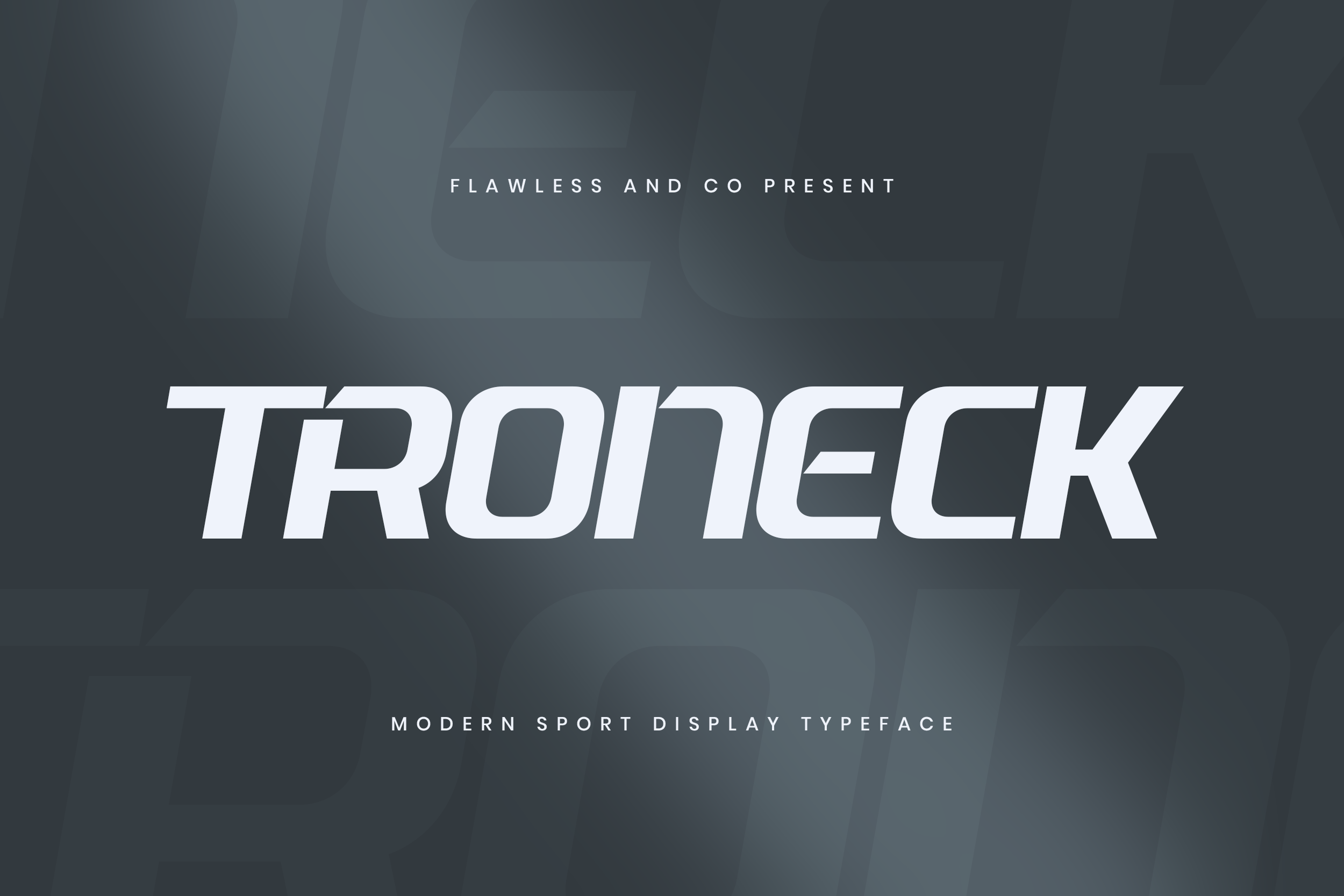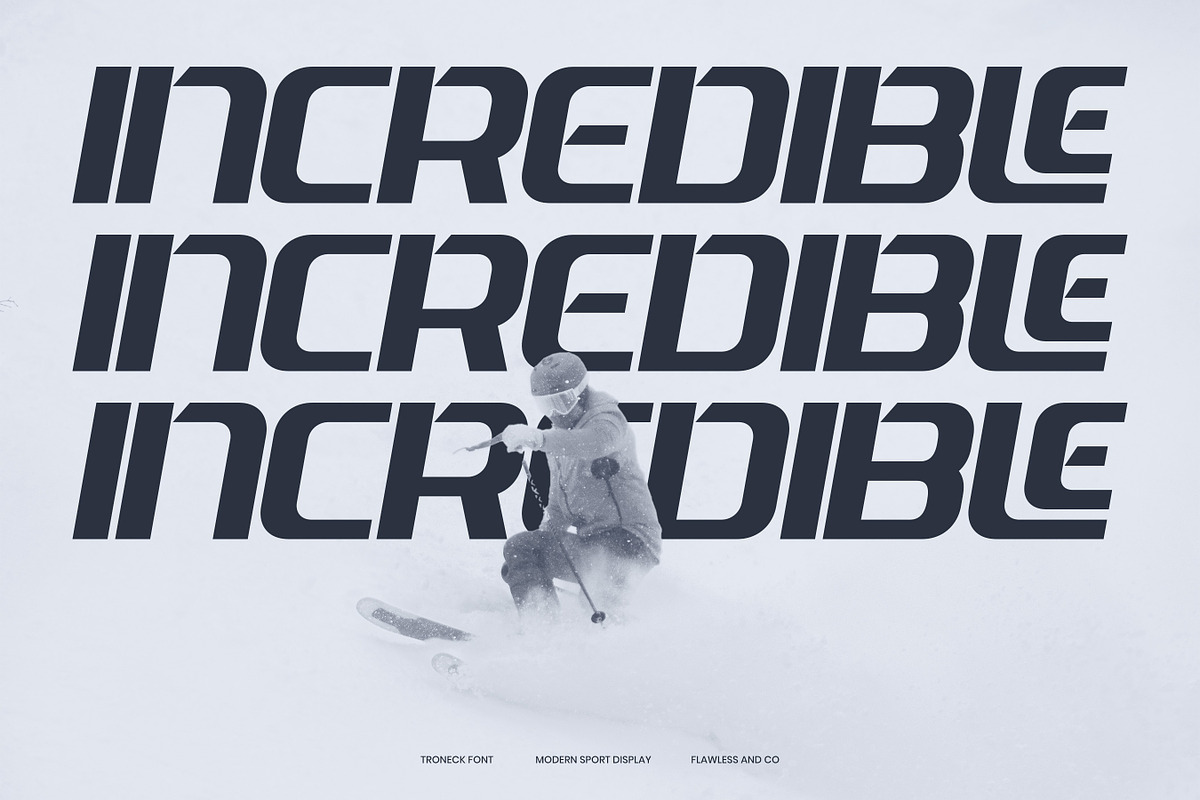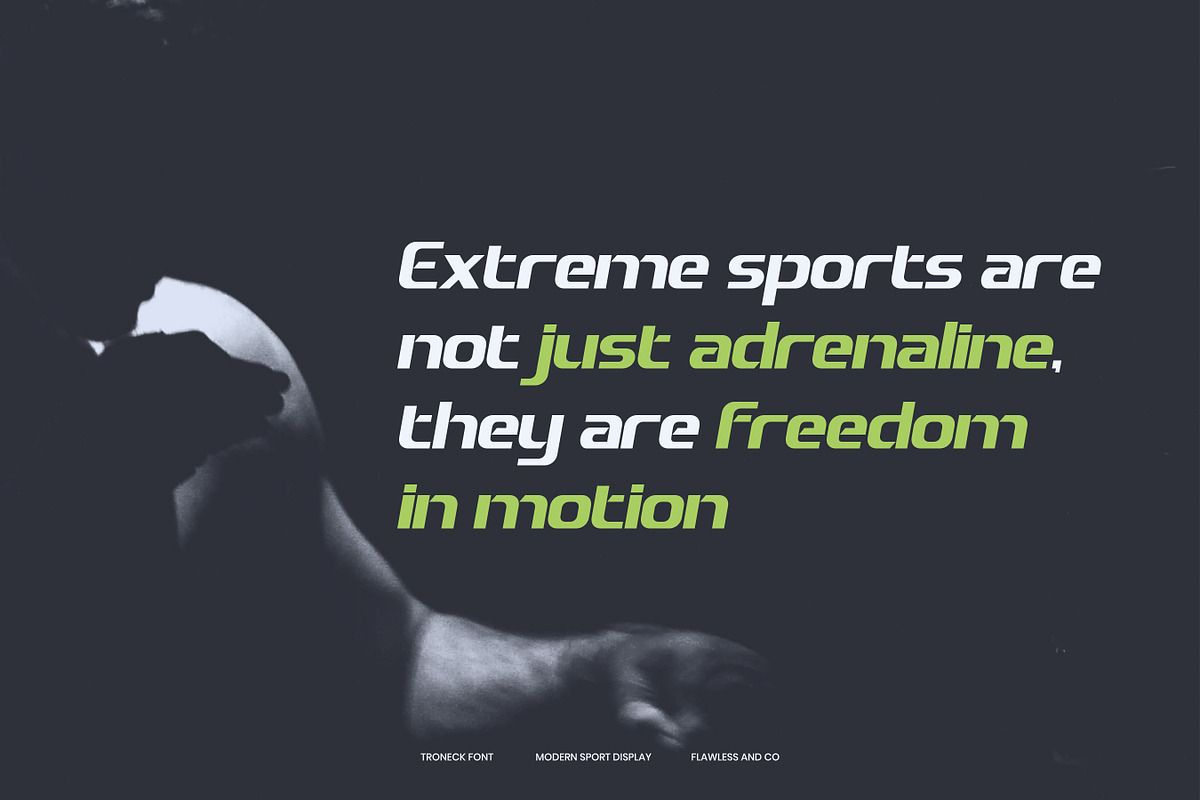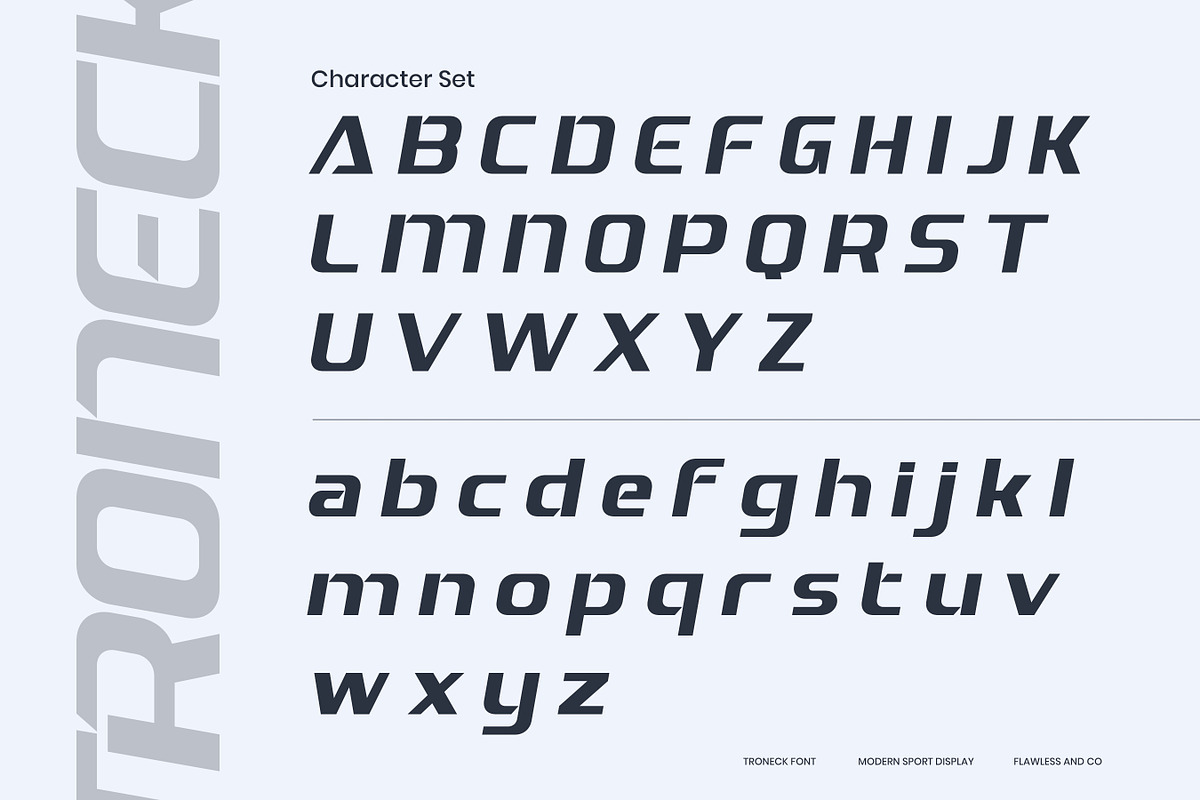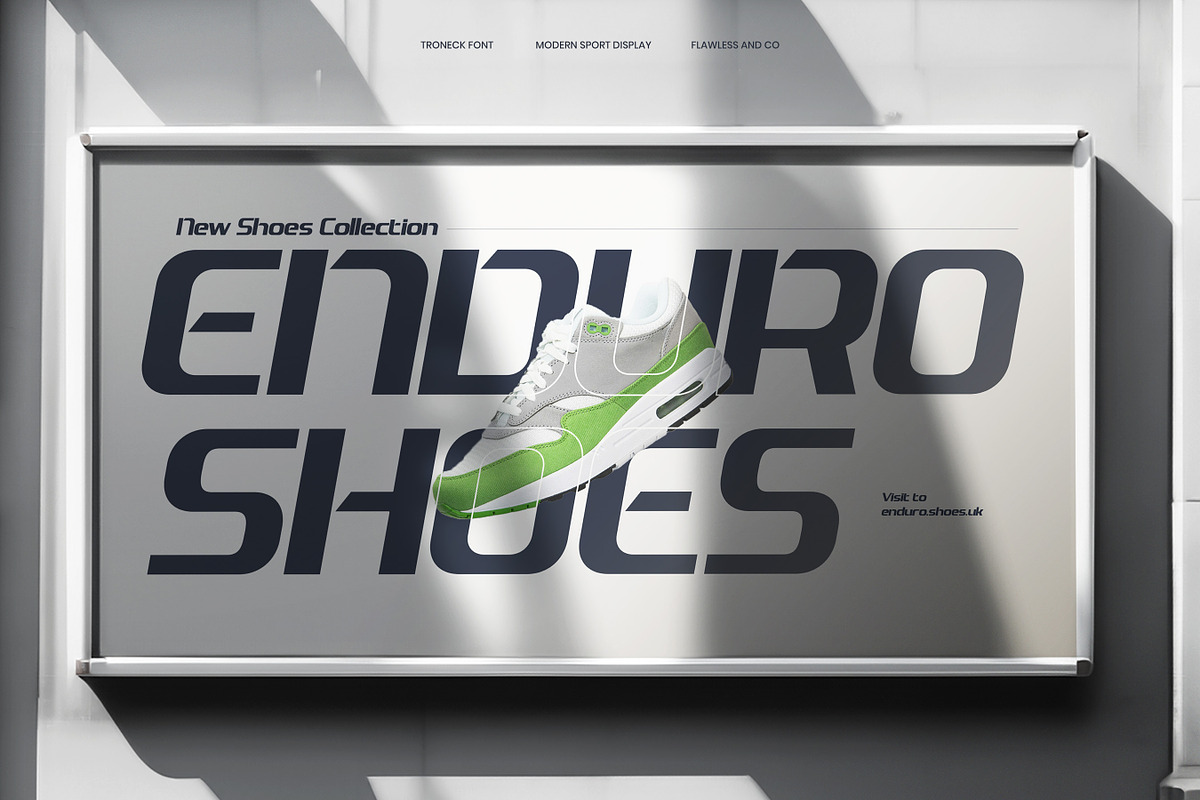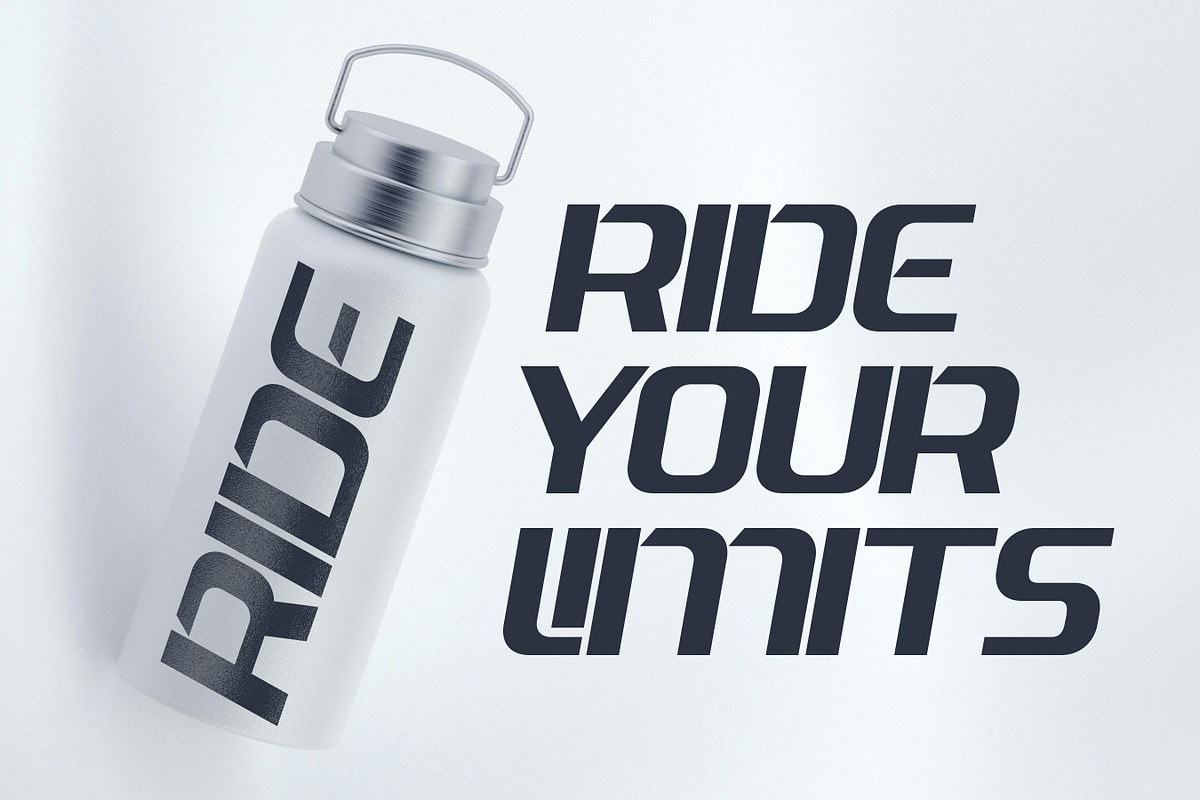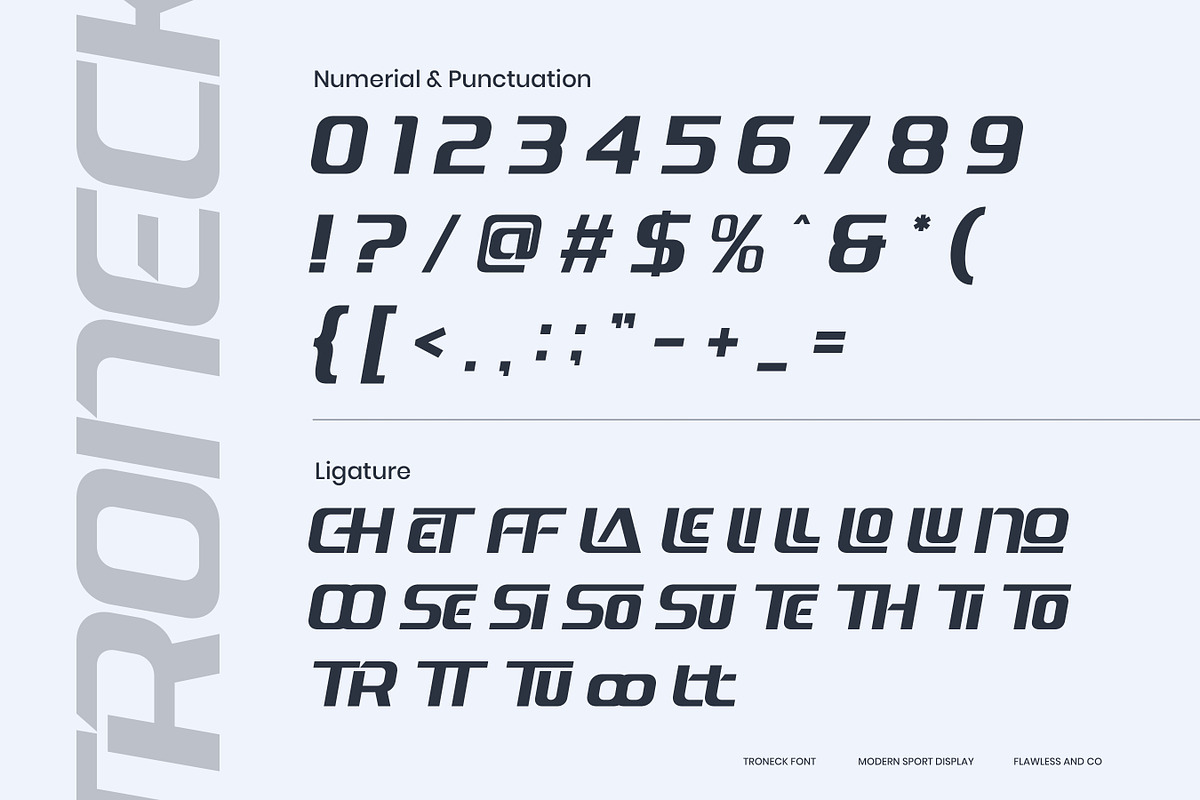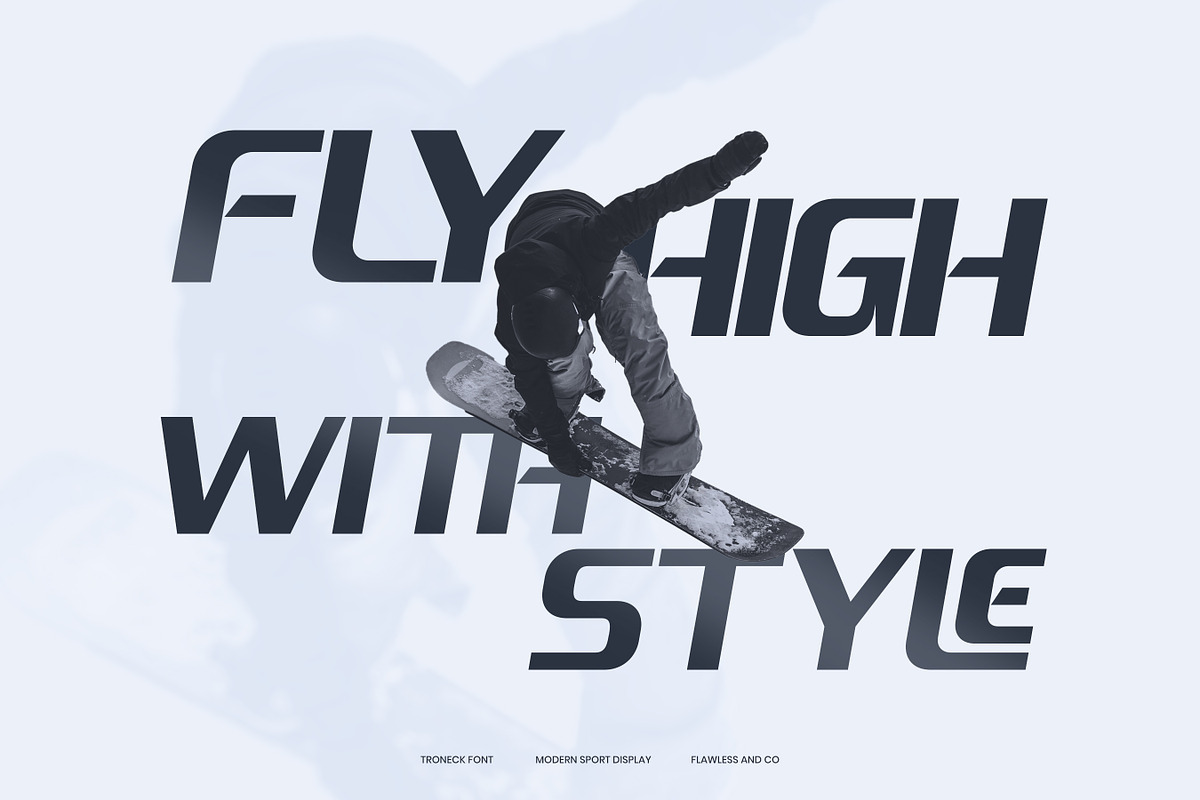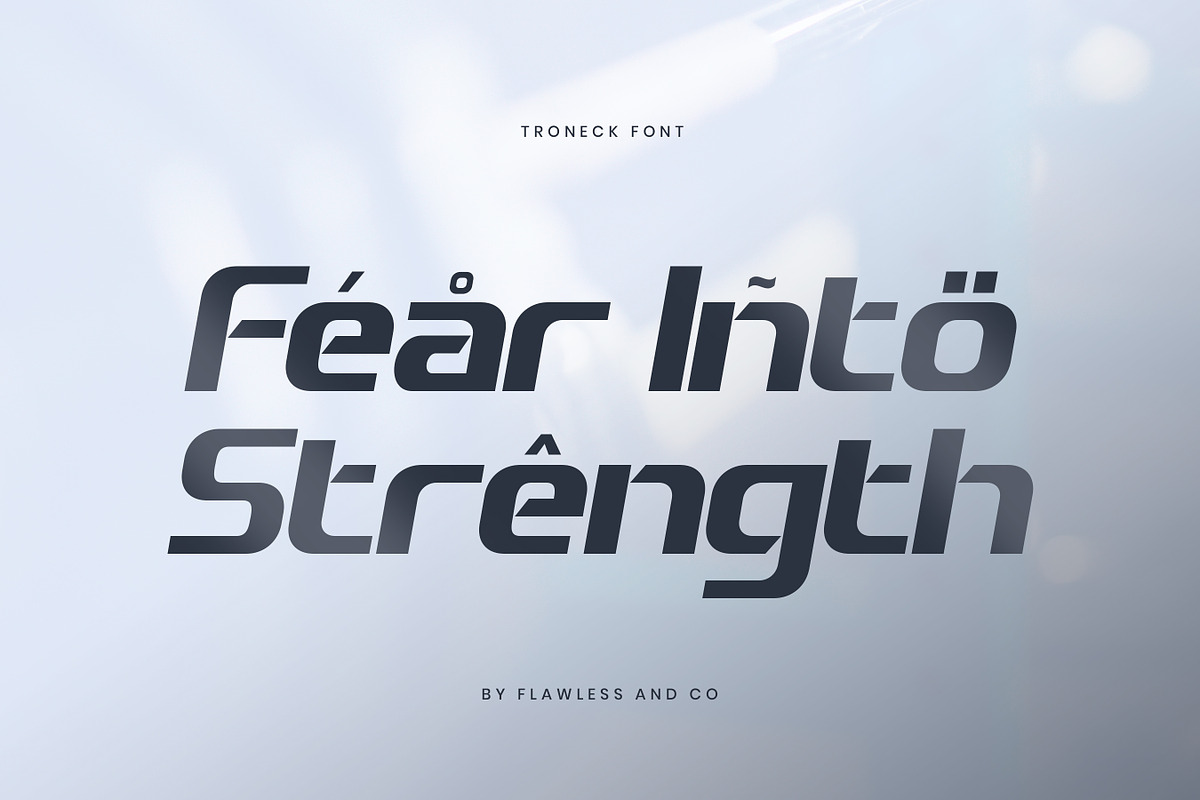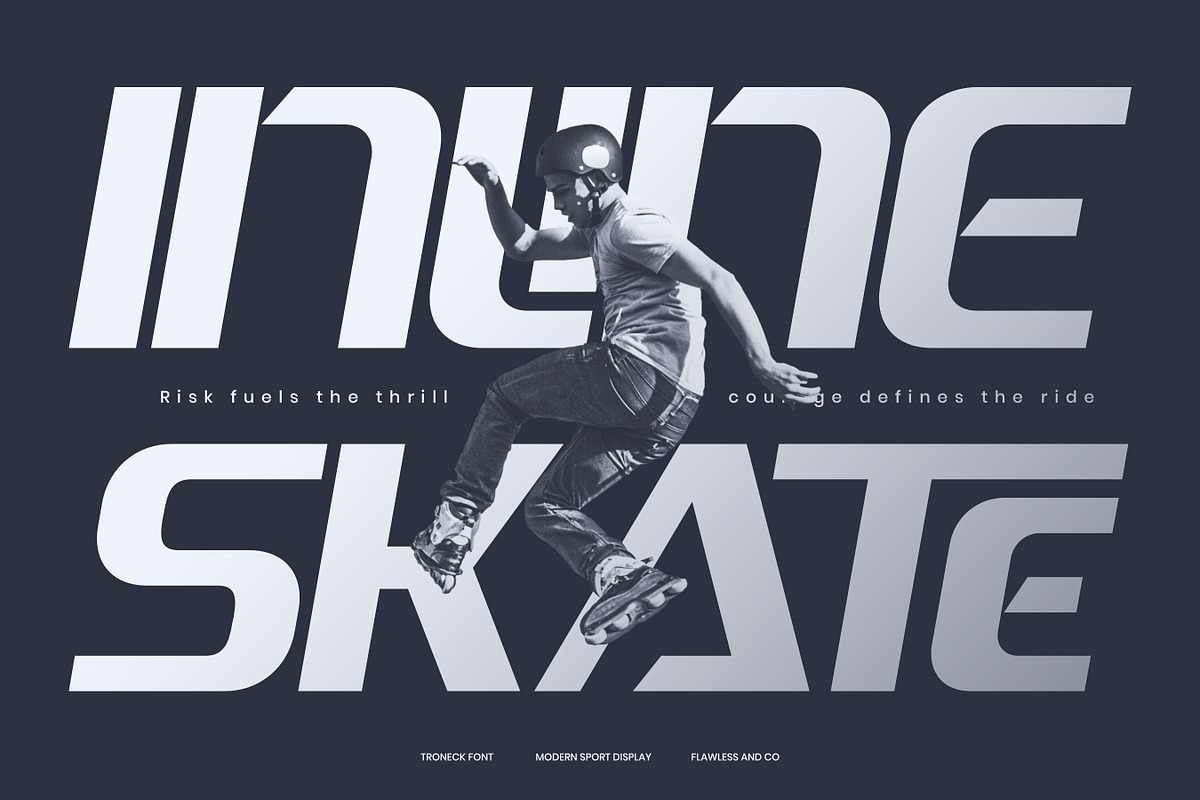
Troneck - Sport Display Font
Troneck is a bold and dynamic modern sport display font designed to bring speed, energy, and strength into every design project. With its sharp edges, futuristic curves, and confident stance, Troneck captures the essence of modern sports and athletic branding. Perfect for making powerful statements, this typeface adds a sense of motion and determination wherever it’s used. Whether for logos, jerseys, posters, or digital media, Troneck gives your design the edge it needs to stand out. Its versatility makes it suitable for both print and screen, ensuring your brand identity or creative project leaves a lasting impression.
Who Should Use Troneck?
Troneck is made for designers, creatives, and brands who want to showcase strength, speed, and a modern athletic vibe.
It’s the perfect choice for:
- Sports brands and athletic companies looking for bold, high-energy typography
- Designers creating logos for teams, events, and competitions
- Streetwear and sneaker brands that want a futuristic and dynamic style
- Creative agencies working on bold advertising and promotional campaigns
- Content creators who need impactful typefaces for digital media, gaming, or esports projects
A Must-Have Font for Brand and Logo Creators and Designers
Troneck isn’t just a font — it’s a design weapon built to capture attention. With its modern sport display style, Troneck delivers power, speed, and confidence in every letterform. Whether you’re designing bold logos, sports branding, or futuristic advertising, this typeface gives your work the competitive edge it deserves
Why Choose Troneck for "Brand and Logo" Projects?
Troneck is designed to elevate your branding with a bold, modern, and sporty look. Its sleek lines and powerful geometry make it the perfect typeface for logos that demand visibility and strength. Whether you’re building a dynamic sports identity, futuristic tech brand, or eye-catching product campaign, Troneck ensures your designs stand out with style, confidence, and impact.
Suitable For:
- Brand identities and logo design
- Sports teams, jerseys, and merchandise
- Tech and futuristic branding projects
- Posters, advertising, and promotional materials
- Product packaging and modern label design
- Social media graphics and digital campaigns